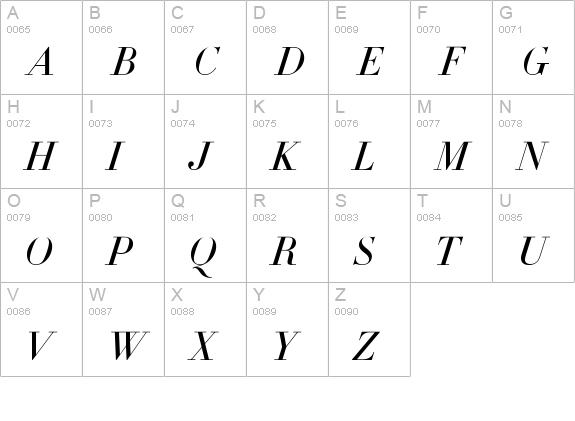
Didot-HTF-L16-Light-Ital Font Details
Didot-HTF-L16-Light-Ital is a refined, elegant variant in the Didot typeface family \xE2\x80\x94 well suited to elegant body text, refined sub-headings, and luxury branding.
The Didot-HTF-L16-Light-Ital font is a graceful and elegant typeface that exudes sophistication and refinement. Its delicate strokes and stylish italics make it perfect for adding a touch of class to any design project. This font is ideal for luxury branding, editorial design, and any project where a touch of elegance is desired. Best of all, this exquisite font is available for free download at FontsMarket.com. Whether you're a designer, a business owner, or a creative enthusiast, you can easily access this beautiful typeface and elevate your projects with its timeless charm. Don't miss out on the opportunity to enhance your designs with the Didot-HTF-L16-Light-Ital font, now freely available for download.